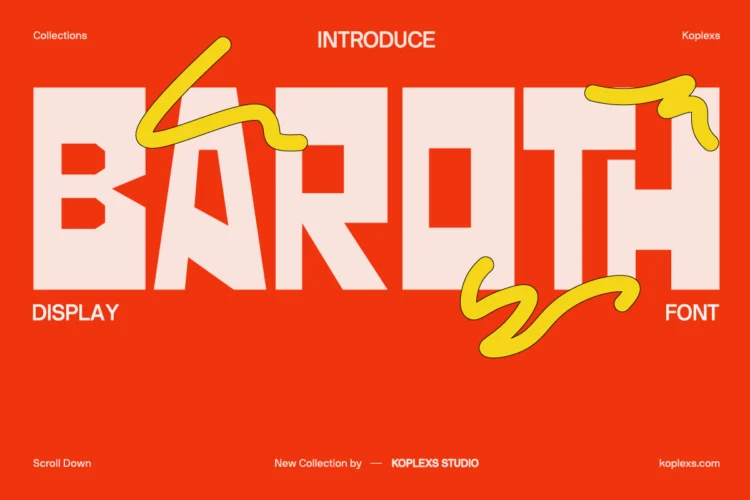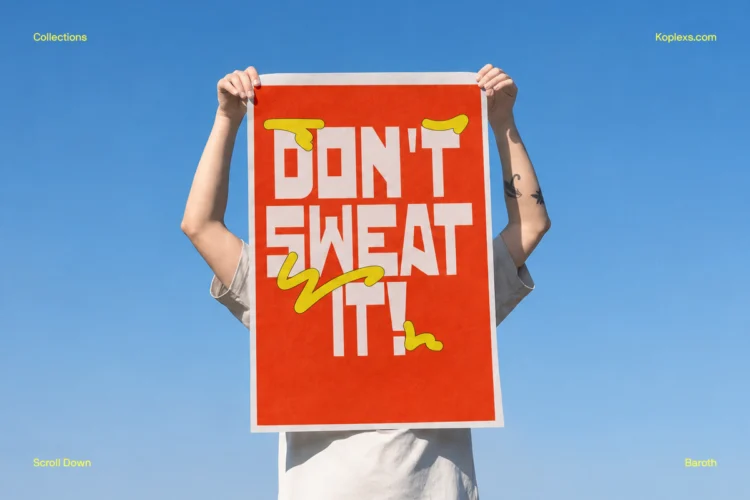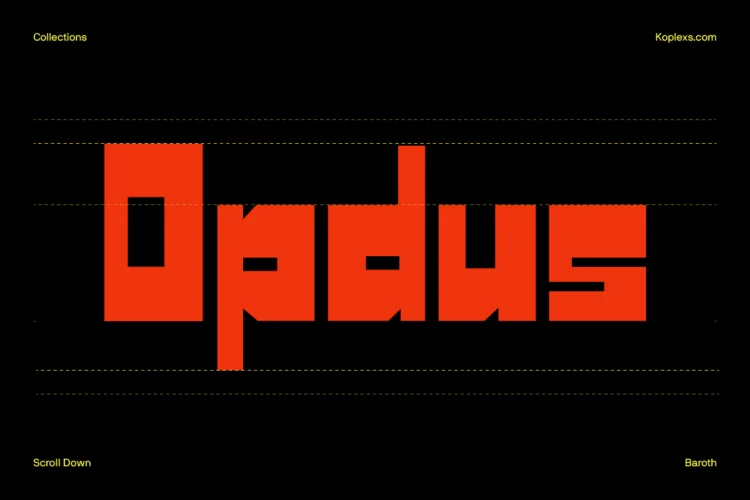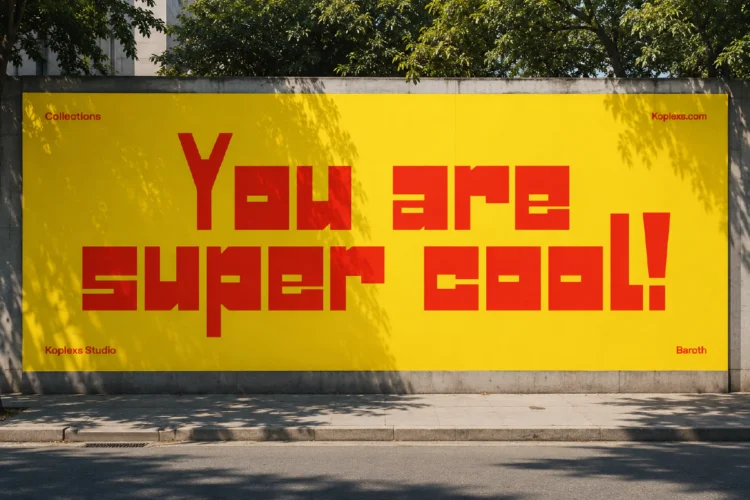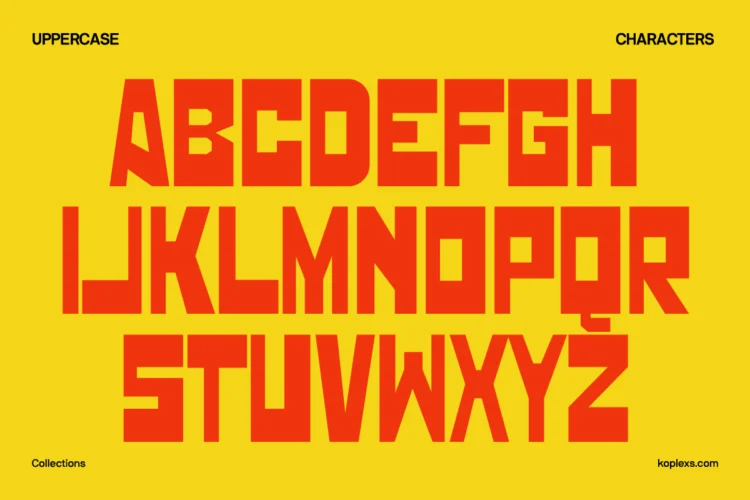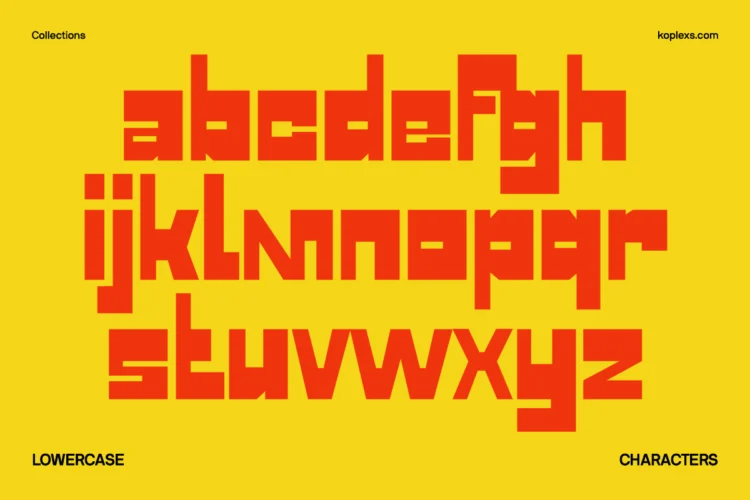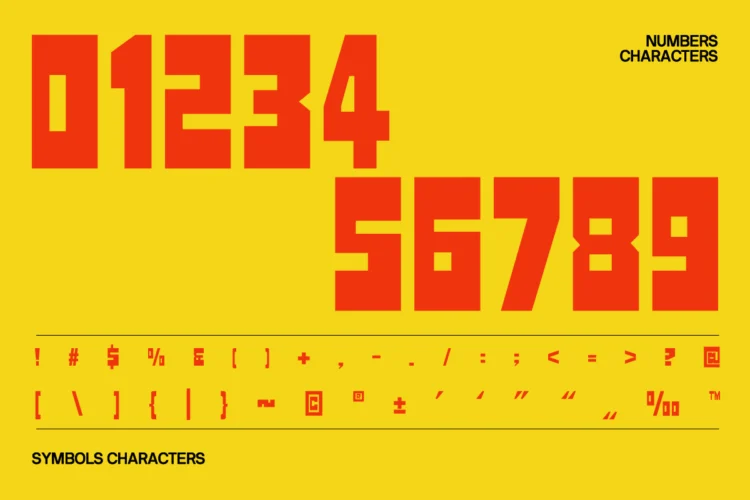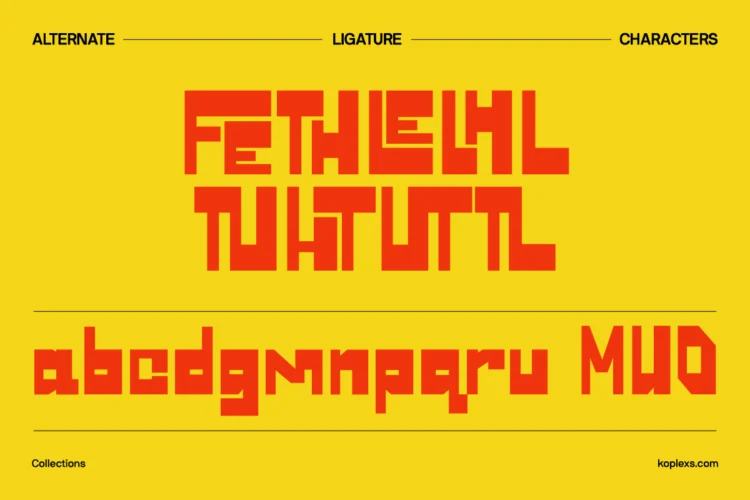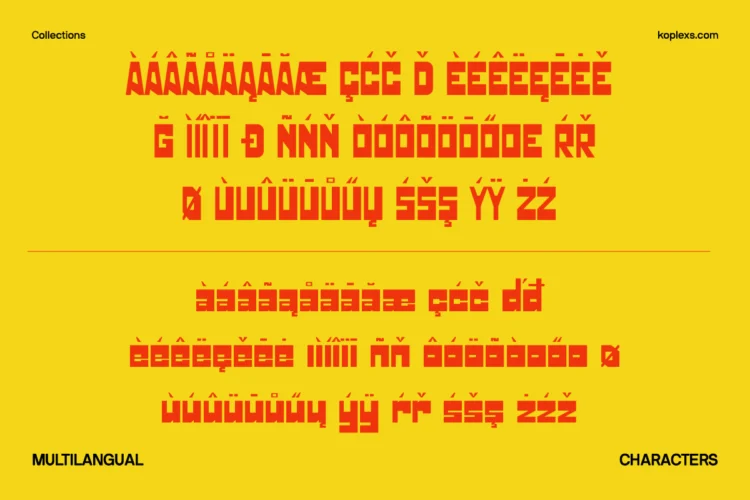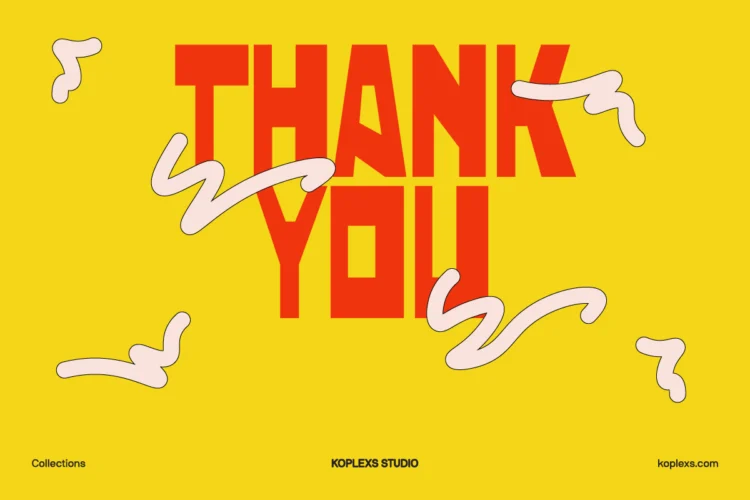
Baroth Font: Bold Display Typeface for Modern Branding
Baroth Font is a bold display typeface made for designs that need to stand out instantly. With its chunky structure, condensed proportions, and strong geometric shapes, Baroth brings a confident, modern personality to every project.
Its heavy letterforms work especially well at large sizes, making Baroth a great choice for attention grabbing headlines and statement typography. The compact construction also gives your layouts a powerful editorial look without losing readability.
Baroth feels bold, energetic, and slightly rebellious, making it suitable for modern brands, street inspired visuals, creative campaigns, and expressive graphic design.
- Ligatures & Alternate Fiture
Perfect For These Design Styles
- Logo and brand identity
- Poster and flyer design
- Bold headlines and titles
- Product packaging
- Clothing and apparel graphics
- Streetwear branding
- Magazine and editorial layouts
- Album and music artwork
- Social media graphics
- Website hero sections
- Advertising campaigns
- Event promotions
- Merchandising design
- Creative typography projects
Whether you are creating a loud promotional poster, a strong fashion identity, or a modern packaging concept, Baroth gives your message a distinctive visual presence that is hard to ignore.